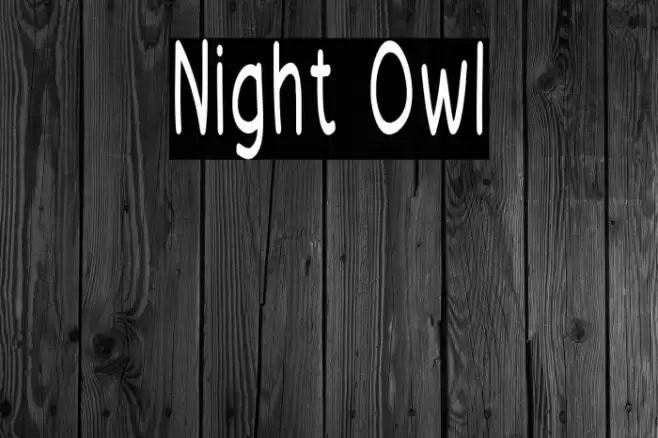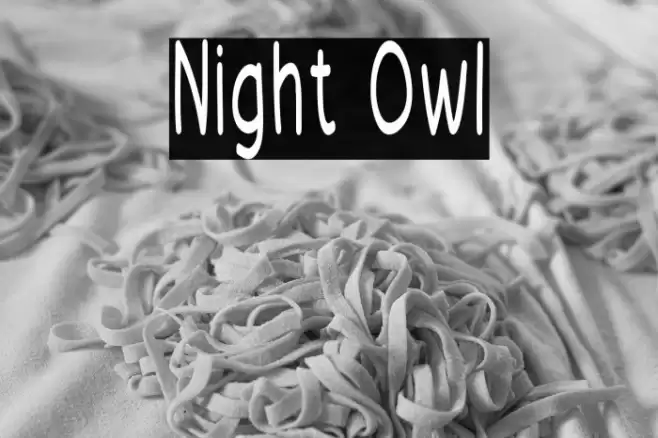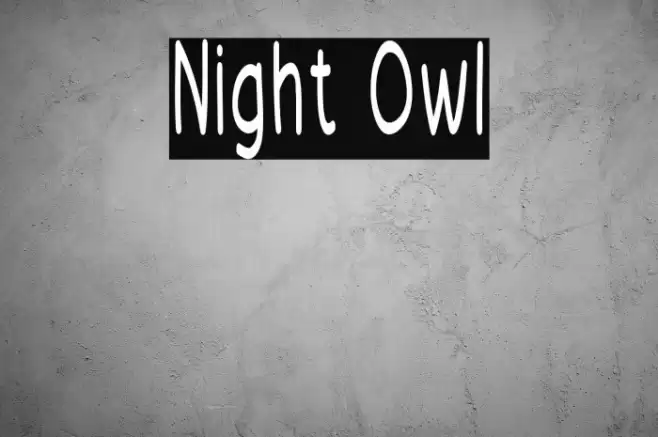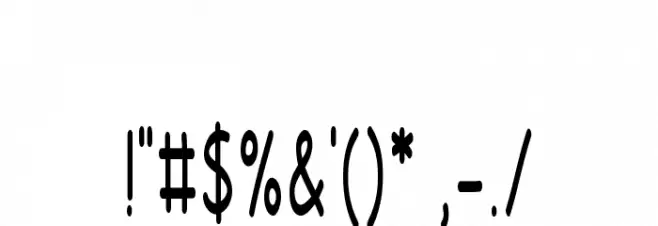
Night Owl Font
Night Owl Description
This font features a playful and informal style, characterized by its rounded and slightly irregular letterforms. The uppercase and lowercase letters maintain a consistent height, giving it a uniform appearance. The strokes are smooth and even, with a medium thickness that provides good readability. The font includes a full set of uppercase and lowercase letters, numbers, and a variety of special characters, making it versatile for different uses. Its casual and friendly look makes it suitable for projects that require a personal touch.
A playful, rounded font with a casual and informal style from Regular fonts.
- Proposed Projects: Ideal for children's books, greeting cards, casual branding, and social media graphics.
- Overall Style: Casual
- Use Case: Headlines, Informal text, Branding